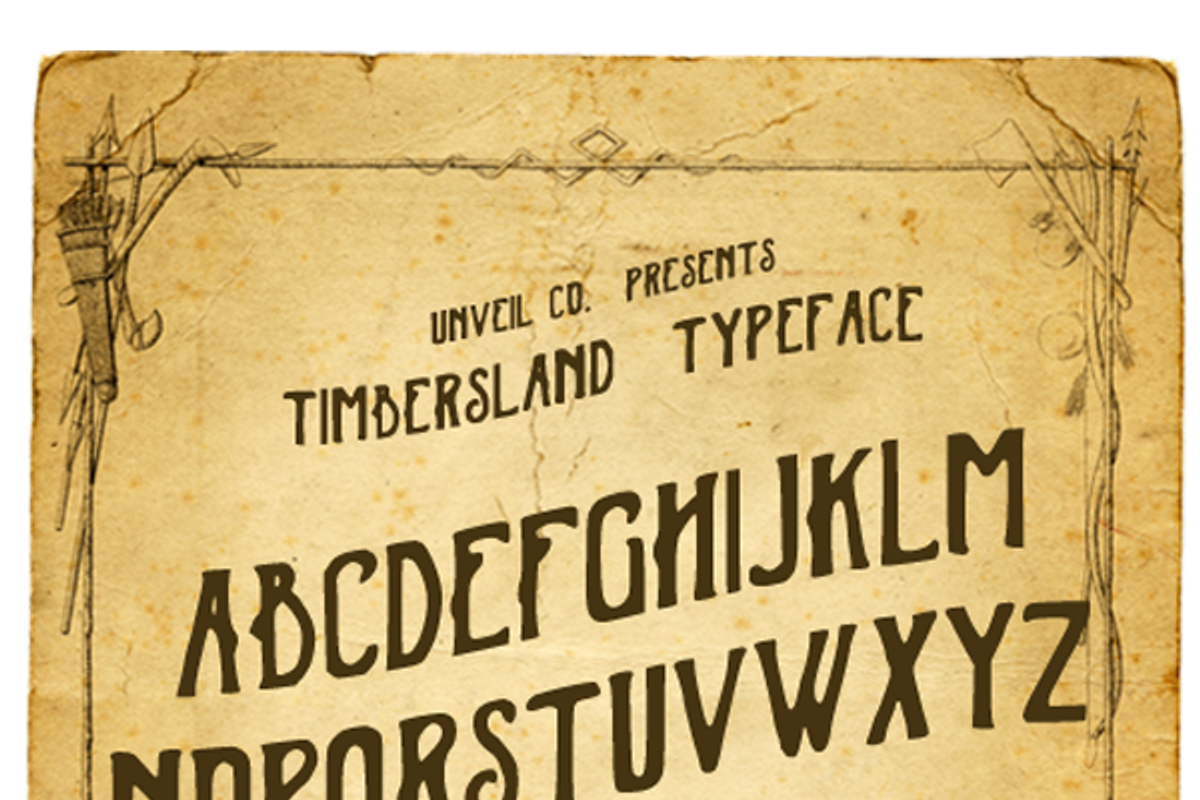
Timbersland Typeface
Timbersland Typeface by UnVeil Co. is a font selected for branding, posters, packaging, typography.
Why Timbersland Typeface is worth a look
Timbersland Typeface by UnVeil Co. fits naturally into Branding, posters, packaging, typography.